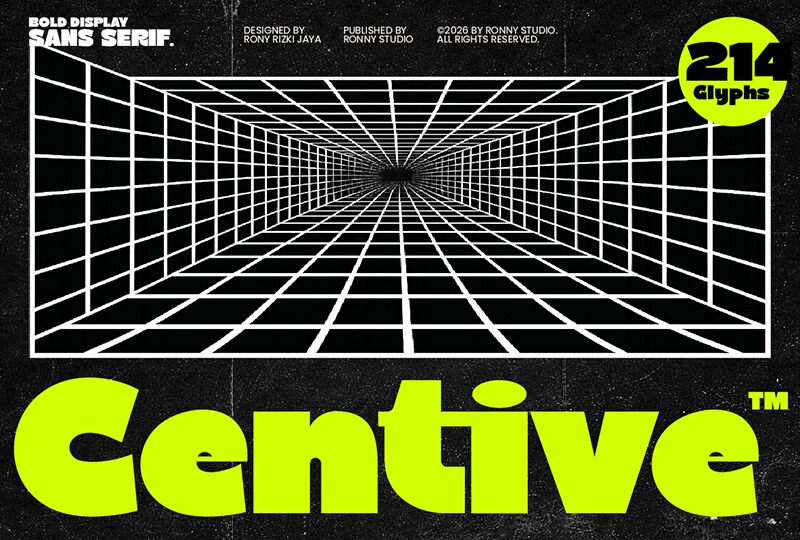
Centive font designed by Ronny Studio is a free font with a contemporary appeal. The sans serif typeface was built from scratch to underline aesthetically appealing design works. Its futuristic design and minimalist appearance are some characteristics of geometric fonts found in Centive.
It can be used in modern and experimental projects or those who want a touch of originality and elegance. You will love putting Centive to use in your branding projects, posters, signage, magazines, and website design.
It can also work for advertising, packaging, and social media use. A versatile typeface, let your creativity flow by taking advantage of this exceptional free font today.